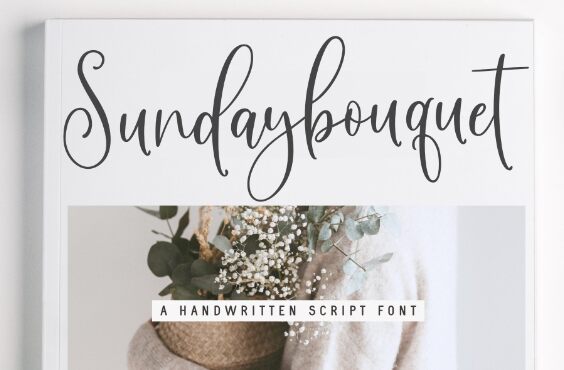
SundayBouquet is a light and whimsical calligraphy font, designed by Jamaludin JK @Jimtypestudio. It's perfect for adding a unique touch to invitations, greeting cards, logos, posters and other creative projects.
SundayBouquet